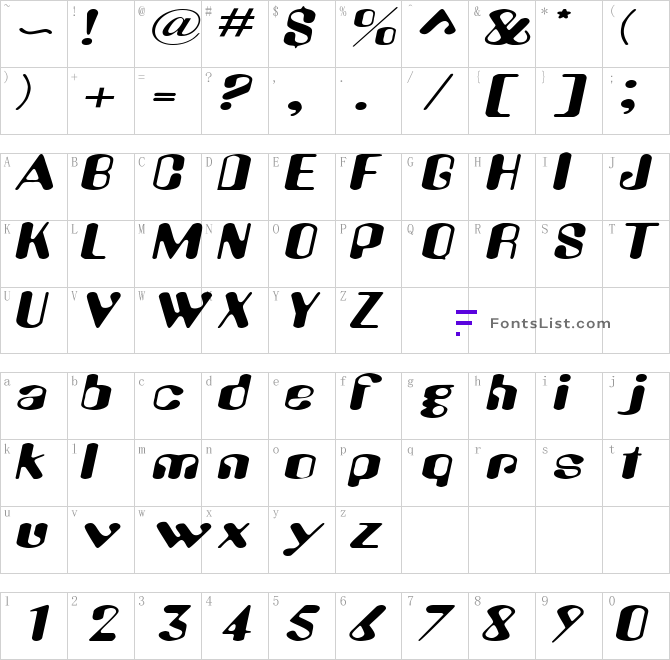
- Font Name:AlienEyeExtended
AlienEyeExtended-Oblique.ttf is a very beautiful artistic font, AlienEyeExtended-Oblique.ttf is widely used in the design and printing of various books and pictures,AlienEyeExtended-Oblique.ttf has a strong visual impact,AlienEyeExtended-Oblique.ttf is a commonly used font in newspapers, magazines and books, and is used in posters, e-commerce Poster design, store design, logo design, font design and other fields.AlienEyeExtended-Oblique.